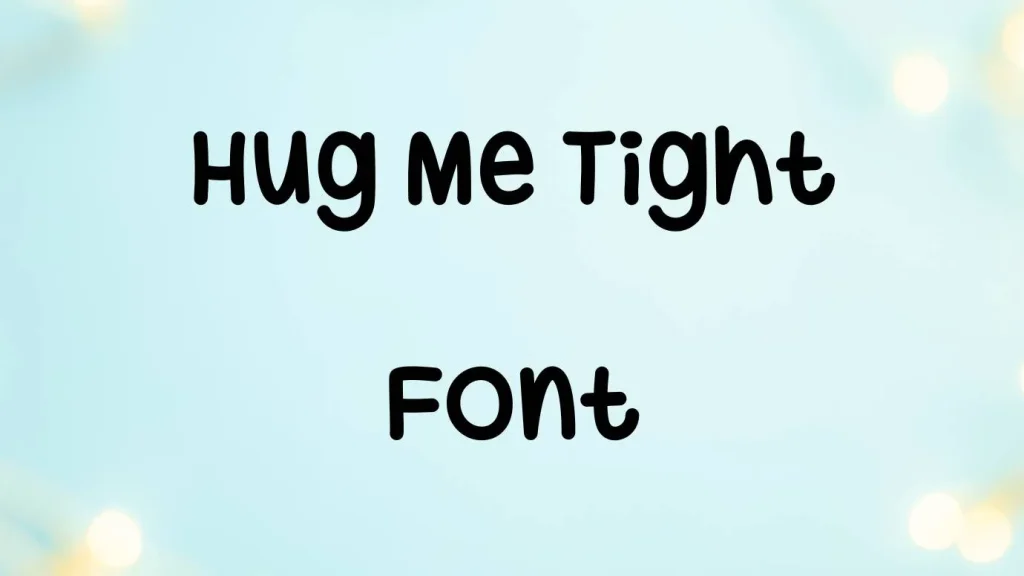
Misti’s Fonts designed this unique text style known as Hug Me Tight Font it is a display text design. It is the most popular style for creating new attractive designs, the font is also a perfect idea to be used to create unique and trendy designs.
The style has a compact size as well as a simple style that enables it incredibly readable on displays. The Font also has a large selection of alphabetic characters, making it appropriate for usage in many various languages.
The typeface has a variety of exclamation points and attractive characters. This typeface that can be used on Canva can produce graphics that are both lovely and polished. The design is a great option if users desire something that is fashionable and simple to read.
There is a generator tool that you can utilize to create graphical theme patterns. It can be used for PowerPoint presentations, textile printing, and different publication projects. Also appropriate for poster logos, theme design, and video design.
Although it combines better with several different fonts found in this font group, the typeface is the better alternative for creating unique designs. Having a readable texture and a unique appearance, this typeface is attractive.
And this style is perfect for logos, branding projects, homeware packaging, and all kinds of other lovely ventures that require an attractive look. Additionally, this typeface includes trendy glyphs and characters. The typeface will undoubtedly give your ideas more identity because of its lovely designs.
What is the closest typeface to Hug Me Tight?
Several fonts that are similar to this font can be used to create similar designs, but the Rounded Line 7 Font is the most similar style.